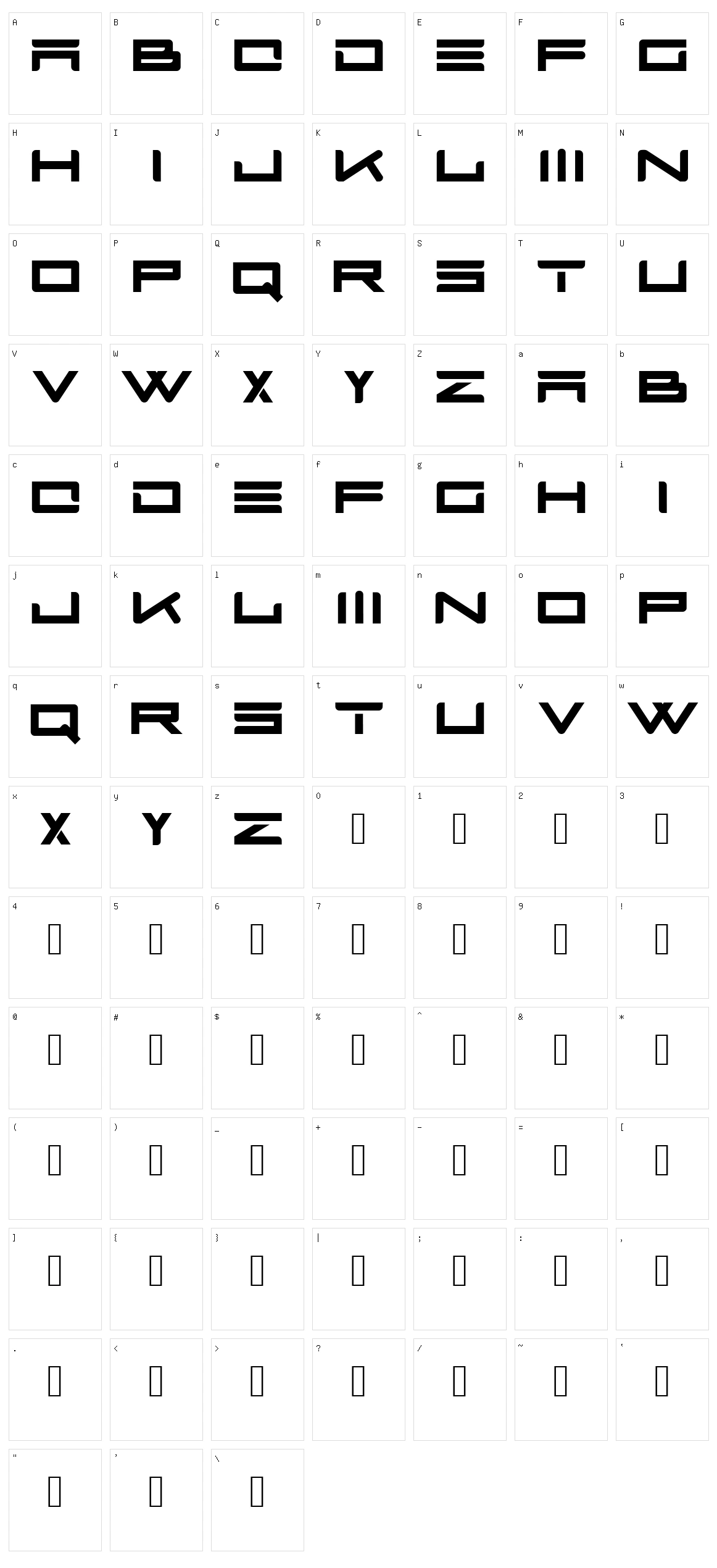
The free font Boast is carefully designed by Robin Boast, showcasing a thoughtful balance of creativity and usability and belongs to the Techno font family. When you download the ZIP file, it contains only 5.2 KB of font files, making it lightweight and quick to download. Please review the license details below to understand permitted usage and distribution rights. If license information is not available, we recommend using this font for personal projects only or contacting the author directly for commercial usage permissions.